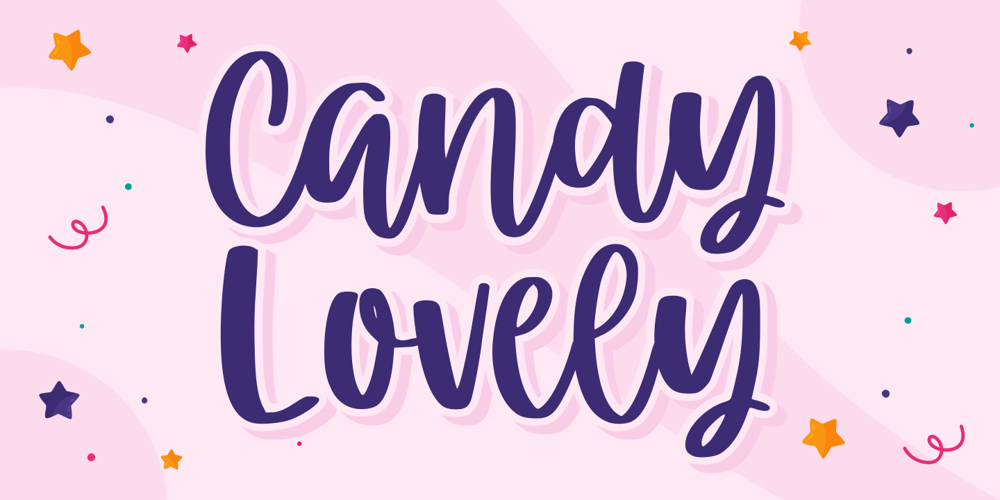
Candy Lovely Font Family was designed by Good Java and published by Good Java Studio. Candy Lovely contains 1 styles and family package options. Candy Lovely – Cute Handwritten Font make from handlettering ideas in typeface. This font includes full of Alphabetical glyphs, Numerals, and punctuation. This is so perfect for invitations, monograms, wedding, fashion, branding, label, handlettering or logotype.